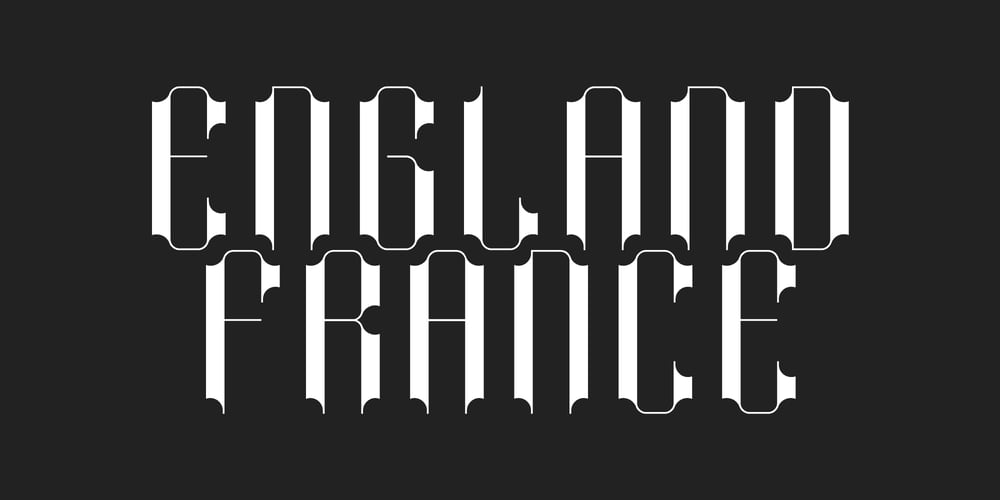
Modern Gothic
Modern Gothic font
Modern Gothic Font Family was designed by Pau Gomas and published by Pau Gomas Studio. Modern Gothic contains 3 styles and family package options. Experimental Font designed to be used as a Display Typeface. Modern Gothic Family is inspired by Old Black Letter and Sans Serif Fonts. Its strokes have High Contrast. It has no ornaments to be readable in small sizes too.If you seek exclusive design, this font is perfect to create it.